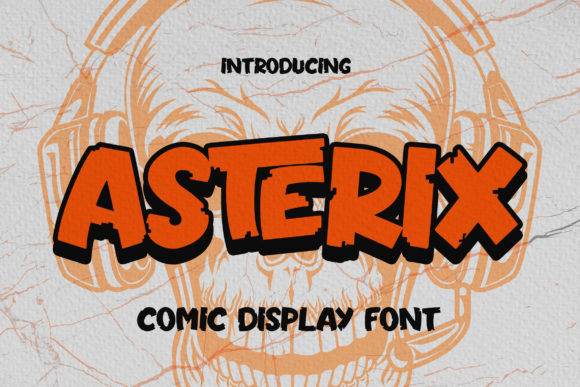
Step into the vibrant world of Asterix Font, the ultimate display font that ignites your creativity and transforms your designs into captivating masterpieces! Unleash your imagination and embark on a typographic adventure like never before.
Meet Asterix, a font that dances with boldness and embraces quirkiness, infusing your designs with a touch of playful charm. Its unique character shines through every curve and stroke, leaving an unforgettable impression that speaks volumes. Whether you're a seasoned designer or just starting, Asterix Font is your key to unlocking a world of creative possibilities.
Dive into the world of Asterix and discover a font that's as versatile as it is captivating. Its playful nature makes it the perfect choice for cartoon-related designs, children's games, and any creation that calls for a dash of lightheartedness. With Asterix, your designs take on a life of their own, captivating audiences with their whimsical energy.
But Asterix Font's talents don't stop there. Its bold and confident presence commands attention in headlines, posters, and social media graphics. Its unique letterforms dance across the screen, demanding attention and leaving a lasting impact. Whether you're looking to make a statement or simply add a touch of personality to your projects, Asterix Font delivers every time.
Join the Asterix Font revolution and watch your designs soar to new heights. With its playful charm and bold personality, this font transforms ordinary words into extraordinary expressions. Unleash your creativity and let Asterix take you on a typographic journey that will leave you breathless.